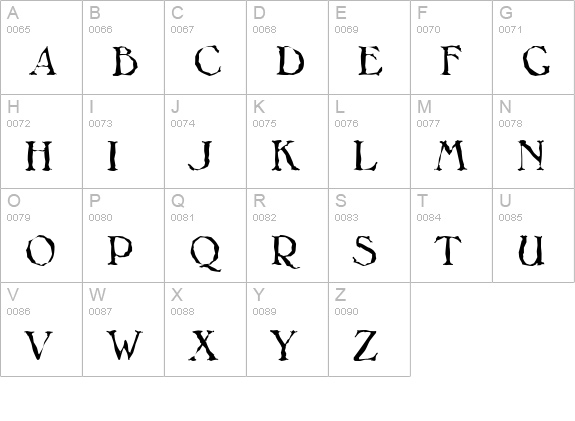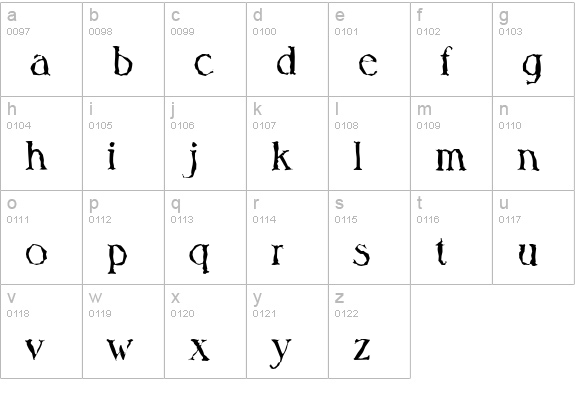
MelbourneRandom-Regular Font Details
MelbourneRandom-Regular is the standard, neutral variant in the MelbourneRandom typeface family \xE2\x80\x94 well suited to general body text, paragraphs, and standard typographic work.
MelbourneRandom-Regular font is a visually stunning typeface that exudes a unique blend of modernity and creativity. Its irregular letter shapes and playful design make it perfect for adding a touch of whimsy to your projects. Whether you're designing posters, greeting cards, or branding materials, MelbourneRandom-Regular font will surely make your text stand out. The best part? MelbourneRandom-Regular font is available for free download at FontsMarket.com. This means you can easily access this eye-catching font and use it in your personal and commercial projects without any cost. Don't miss out on this fabulous opportunity to add a touch of spontaneity and fun to your designs with MelbourneRandom-Regular font. Download it today and let your creativity shine!